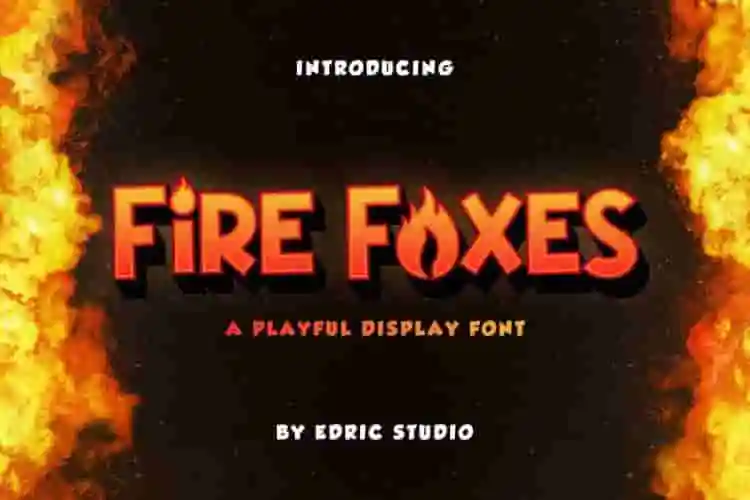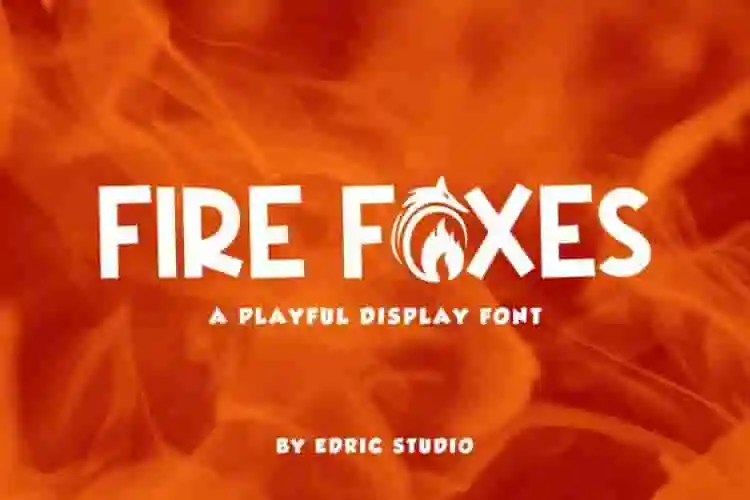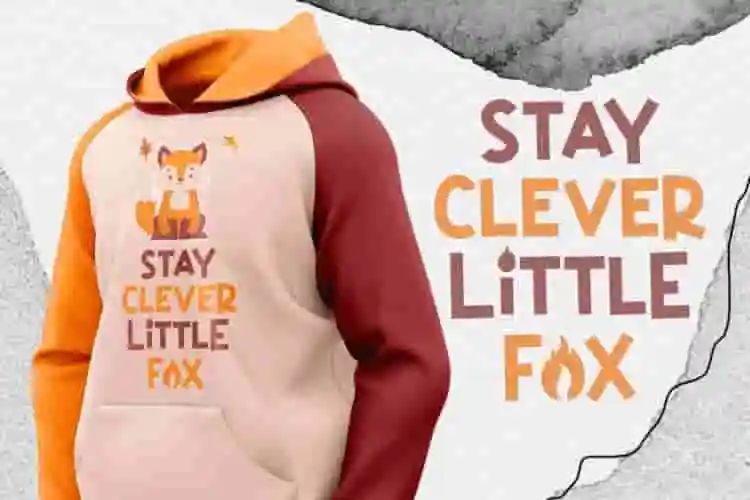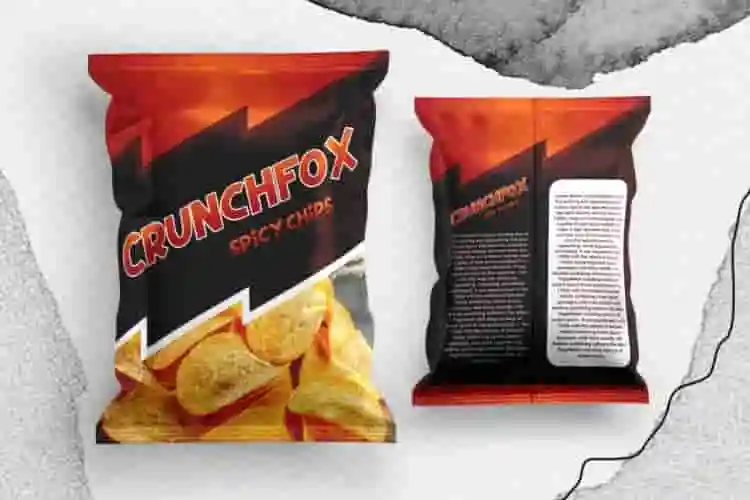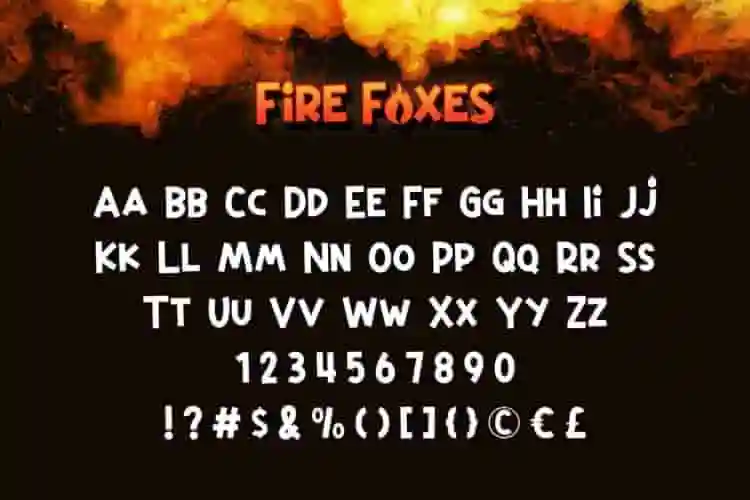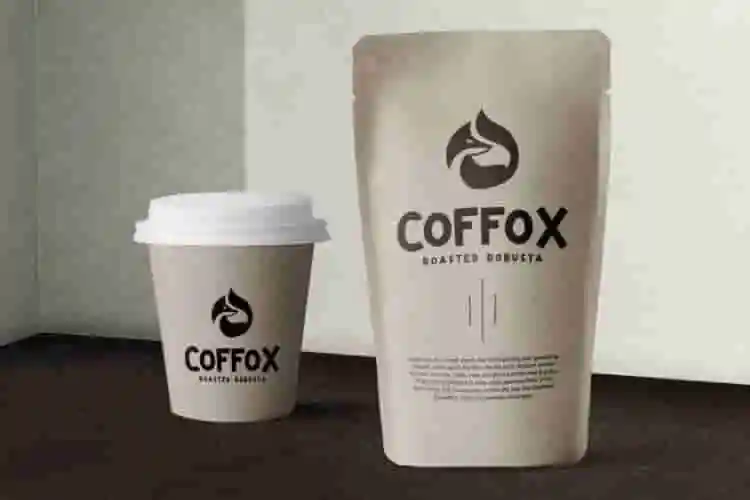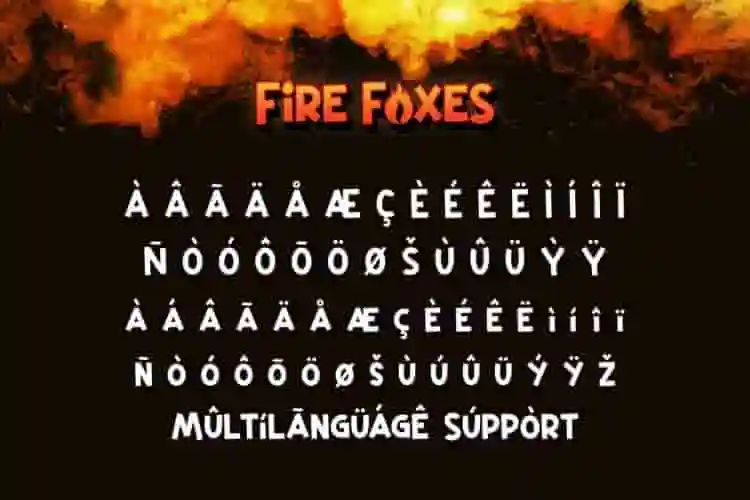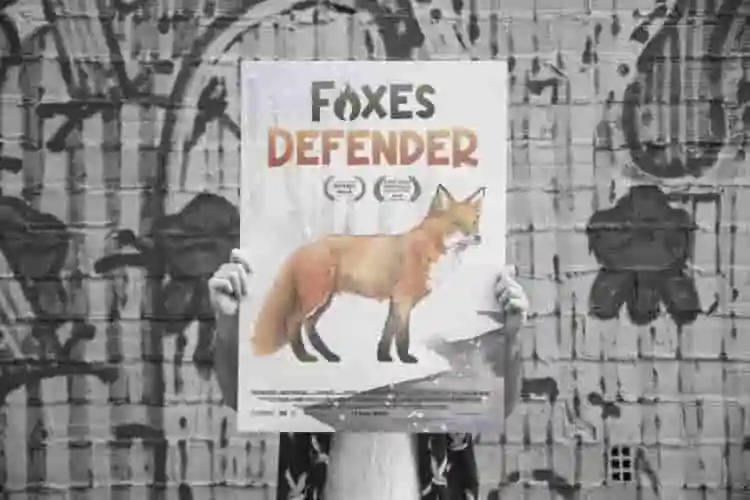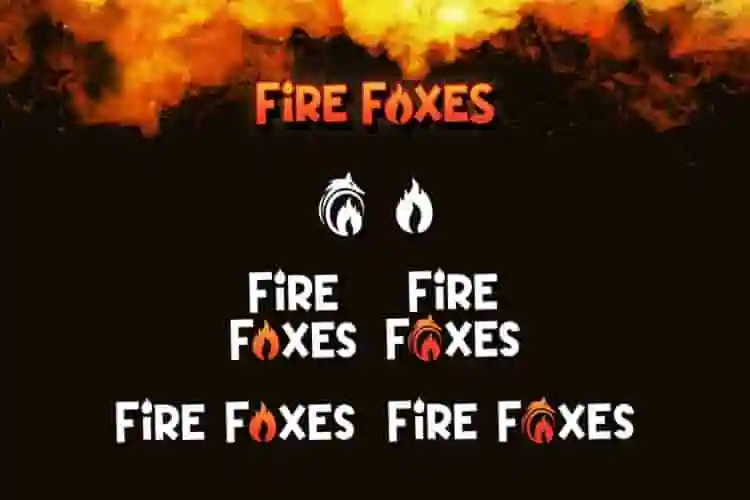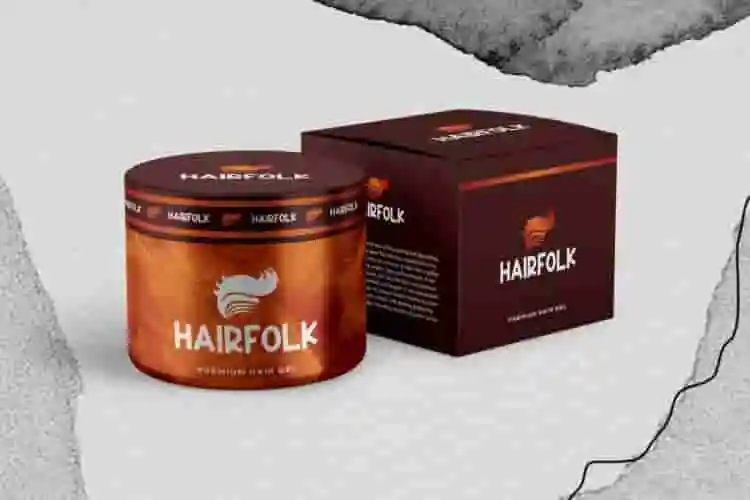
Fire Foxes Display Font
Fire Foxes Font is a playful display font inspired by fox cartoon on several comic uniquely combined with the fire effect. You can use this font with a cool and thick lettered appearance for designs related to cartoons, children’s games, coffee shop, headline, hoodie design, logos, movie, packaging product, poster or banner design, price tags and many more!
Say hello to Fire Foxes, a bold and fearless display font built to bring power, speed, and edge to your designs. With its strong letterforms, sharp lines, and energetic flow, this typeface is made for creators who want to make a loud and confident statement.
Perfect for sports graphics, streetwear branding, music posters, esports logos, and more — Fire Foxes delivers high impact with a wild, modern edge.
Turn up the heat in your designs with Fire Foxes Display Font — a bold and aggressive typeface created to demand attention. With sharp angles, dynamic shapes, and a powerful stance, Fire Foxes is the ultimate font for designers who want to make a loud visual statement.
Whether you’re working on a sports brand, streetwear label, music festival poster, or YouTube banner, Fire Foxes is your go-to font for high-impact design.
• Multilingual Support
• Perfect for Headlines
• Bold & Dynamic Letterforms